Xmas presents for type fans
A massive Christmas list of fabulous gifts for the type geek, letter lover or font fan in your life.
Typographic Time Zone Clocks by Goodwin and Goodwin. £54.95. Made in England out of matt black steel, these feature New York, London or Paris.
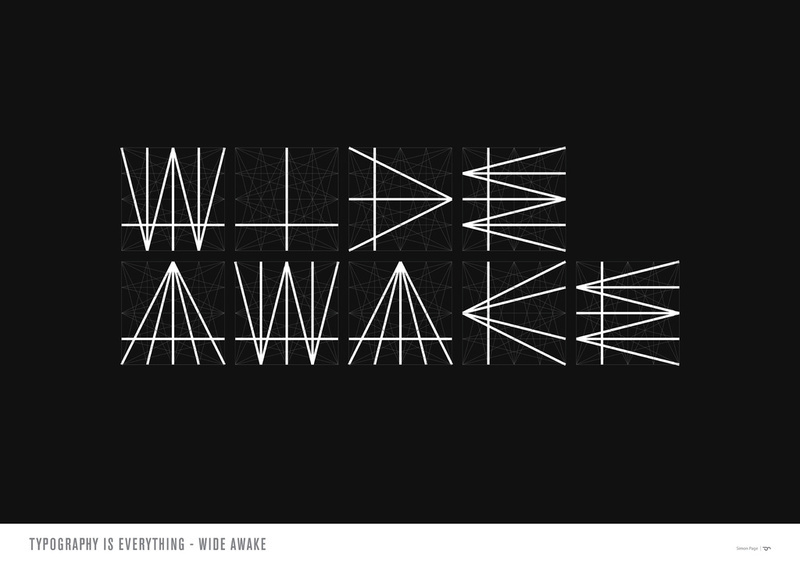
Typography Is Everything poster designed by Simon C Page. $15.00. Fine art print on natural white, matte, ultra smooth, 100% cotton rag, acid and lignin free archival paper using an advanced digital dry ink method.
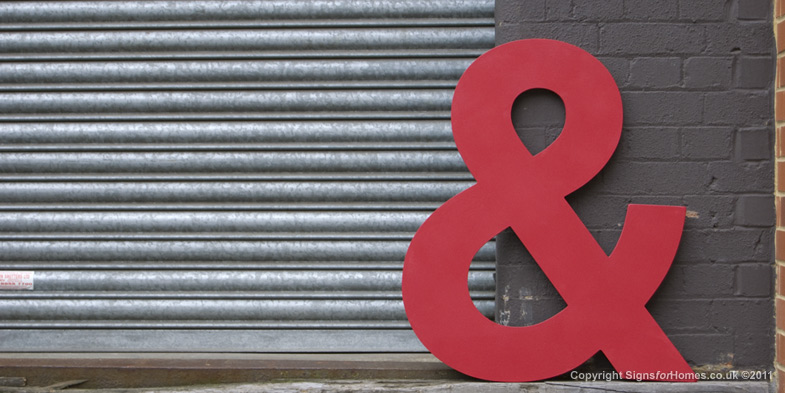
Ampersand Sign by Signs for Homes. £95. Well you can’t beat a good Ampersand, in this is pretty awesome (in the true sense of the word). This huge hand-painted Ampersand is fitted on the back are 2 circular hooks to hang on the wall. Satin red egg-shell finish.
Cast Iron Ampersand from House Industries. $250. More than just a pretty shelf sitter, these heavy ligatures can be deployed in a wide variety of household and office applications such as bookends, door stops, paperweights, dumbbells for power-walking or self-defense mechanisms. Each sculpture is hand picked, numbered, signed by the artist.
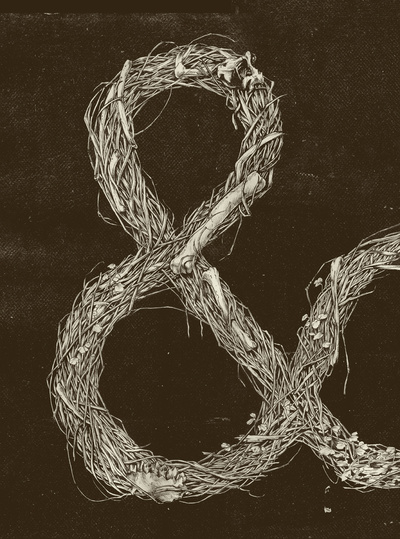
Ampersand fine art print by Teagan White. $15.60. While we’re in the mood, how about this?
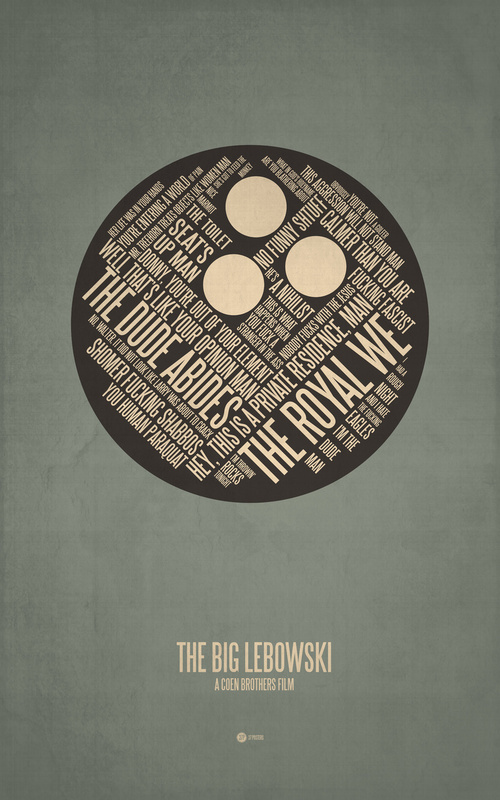
The Big Lebowski by Jerod Gibson. $17.00. Fine art print, also available as an iPhone case, laptop skin, hoodie and t-shirt.
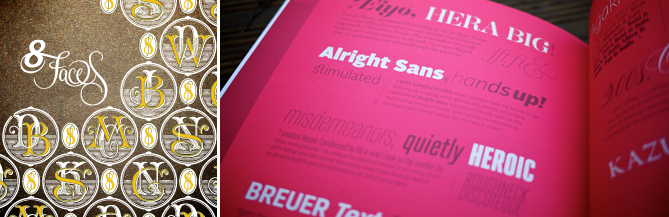
8 Faces magazine. $8. Pressed at just 2000 limited editions, each issue is a true collector’s item. The magazine has one core question at its heart — if you could only use eight typefaces for the rest of your life, which would you choose? — and poses this to eight leading designers from the fields of web design, print design, illustration, and type design.
Codex magazine, the journal of typography. $27. 164 glorious pages of articles, book and type reviews, interviews, type history, new and notable faces, essays, type design, from typography experts.
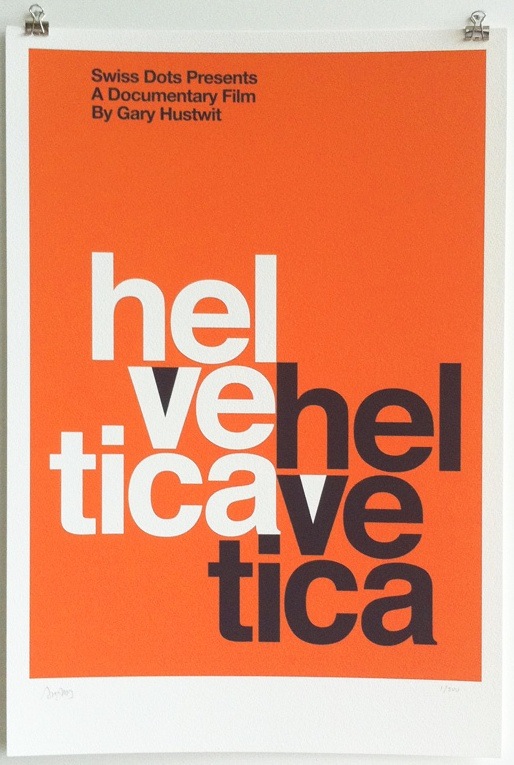
Helvetica Mad Men screenprint. $150. Inspired by one of the original Stempel promotional posters for Helvetica (as seen on “Mad Men”). Numbered edition of 100 copies, each signed by Helvetica director Gary Hustwit.
Whitelines notepad by Papernation. £1.95. A stylish A5 sized notebook with soft saddle stitch cover containing the revolutionary new Whitelines paper, that improves your writing and drawing experience - traditional dark lines on paper interfere with your content, white lines don’t!
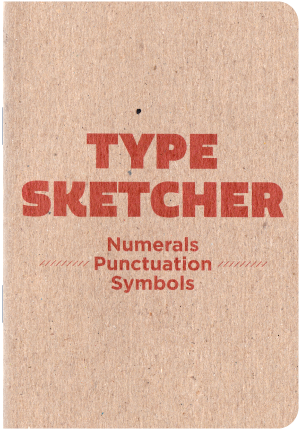
Type Sketcher by Ian Lynam. $12. Cap height, ascender, bowl, serif, baseline: there are a lot of things to keep track of when designing letterforms! The Type Sketcher trio of pocket notebooks helps you stay on track as you design. This set features one book for uppercase, one book for lowercase, and one book for numerals, punctuation and symbols. Each book comes with a brief but informative guide to the basics of type design that serve as gentle guides for beginners and helpful reminders for seasoned type designers.
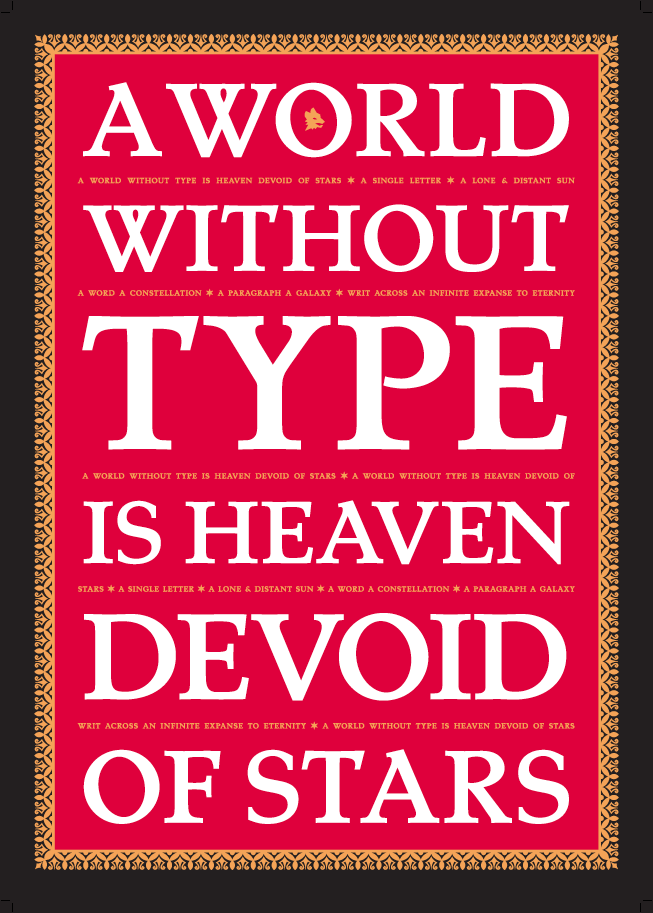
A World Without Type…. $30. An I Love Typography special edition: a magnificent A2 print designed by Swedish graphic & type designer Stefan Hattenbach. Screen-printed in Tokyo on beautiful red Plike paper with gold, white, and black inks. A limited edition of 200. Use the discount code FONTDECK to get $10 off!
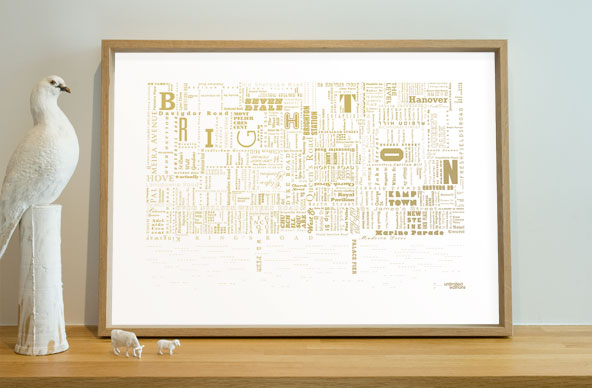
Brighton Font Map by Unlimited Editions. £125. Limited edition foil embossed typographic map of our favourite city!
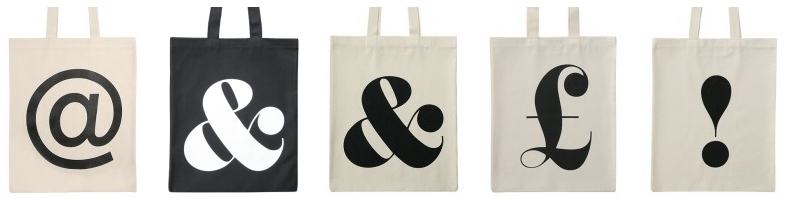
Punctuation bags by Alphabet Bags. £12. Each heavy weight cotton tote bag has been lovingly screen printed and stitched in the UK.
Optimism/Pessimism Double-Sided Print. £45. Philosopher and writer Alain de Botton and graphic designer Anthony Burrill collaborated on a double-sided poster produced exclusively for the first GraphicDesign& event, held at the Design Museum. The event’s subject was Generalia, Phenomena, Knowledge. Alain sees classification as an opportunity to reorganise knowledge so that it might be more helpful to us in everyday life, while Anthony finds his ability to classify his own life is a route to happiness. Their double-sided collaborative poster addresses stereotypical perceptions of seemingly opposing approaches to life.
Centaur letterpess print by our favourite printer, Blush. £20. The first in the ‘Assorted Types’ series of letterpress prints showcasing classic typefaces. Designed by Jim Williams, an award winning typographer & graphic designer who has a lifelong passion for the craft of typography and letterforms. The prints have been lovingly printed to perfection on our vintage Heidelberg cylinder press onto 300gsm Somerset Velvet 100% cotton paper. Limited to 100 prints and individually numbered.
SOGO Japan Charity Print by Ligature, Loop & Stem. $100. This very special limited edition print by type designer and lettering artist Neil Summerour is a true labour of love and respect for Japan, a country that transformed his outlook on the world at age 16. Every exquisitely lettered Kanji on this 18”×24” silkscreen print represents a Japanese city affected by what has been called the 2011 Tōhoku earthquake. 100% of the proceeds from each print will go directly to SOGO Japan, a charitable organization created by Neil that feeds directly to indigenous relief and aid organizations in Japan
Gutenburg Bible replica page signed by Stephen Fry in aid of St. Bride Foundation. £25. A limited edition of 100 copies. The pages were printed on Alan May’s one-pull press that featured in the Stephen Fry BBC documentary about Gutenberg.